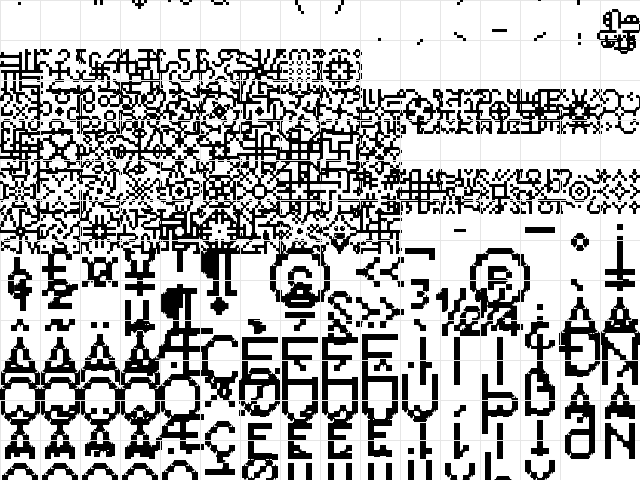
UF PT Forum Twist Regular
| Foundry | Ultrafonts |
| Designer | Hugo Perez of PixieType |
Design Context for UF PT Forum Twist Typeface
UF PT Forum Twist offers clean, dependable letterforms without strong stylistic allegiance, making it a practical choice for designers who need flexibility.